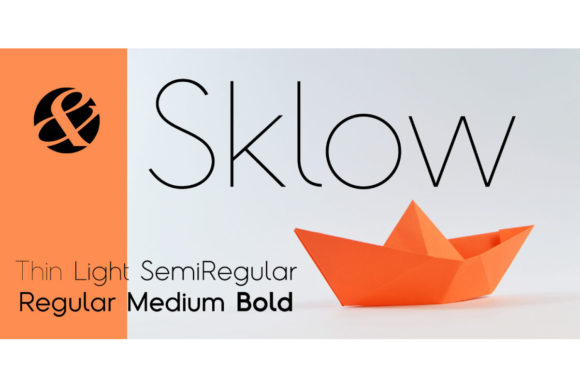
Welcome visual enthusiasts, typography aficionados, and creative masterminds! Brace yourselves to dive into the realm of Sklow Font, a sans serif masterpiece that will redefine your design horizons. At Andfonts, we understand the power of fonts in crafting visual narratives, and with Sklow, we've created a typeface that ignites creativity and transforms ordinary designs into captivating masterpieces.
Sklow Font is a testament to simplicity and elegance, a font that effortlessly complements a diverse range of projects. Whether you're a seasoned designer seeking a touch of minimalism or a budding artist craving a timeless font, Sklow seamlessly blends into your creative vision. Its clean lines, open counters, and balanced proportions lend a touch of sophistication to any project, making it the ideal choice for website designs, branding identities, logos, posters, and more.
Harness the power of Sklow to create websites that exude clarity and professionalism. Its crisp and legible letterforms ensure exceptional readability, enhancing the user experience and guiding visitors intuitively through your web pages. As a font that's easy on the eyes, Sklow promotes longer engagement and encourages readers to delve deeper into your content, transforming your website into a captivating digital haven.
With Sklow's versatile nature, you'll have a font that seamlessly adapts to a multitude of design aesthetics. Its neutral tones and understated elegance allow it to blend harmoniously with vibrant visuals, bold graphics, and intricate illustrations. Whether you're crafting a sleek minimalist website, a vibrant brand identity, or an eye-catching poster, Sklow serves as the perfect foundation for your creative expressions.
Get ready to unleash your creativity with Sklow, a font that's as boundless as your imagination. Let its clean lines and graceful curves inspire you to create designs that resonate with your audience. Experience the joy of seamless typing with Sklow's PUA encoding, allowing you to effortlessly access all glyphs and swashes. Open up a world of typographic possibilities and transform your designs into works of art with Sklow Font.